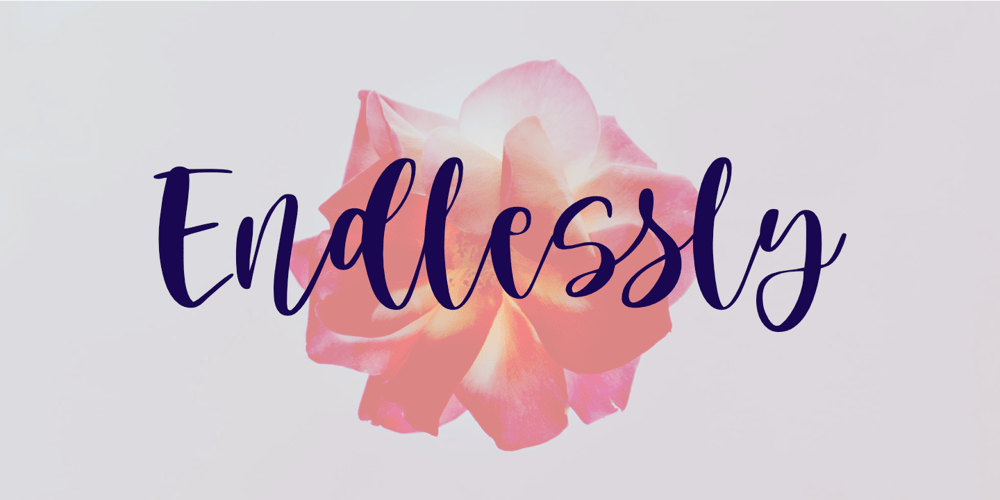
Endlessly Font Family was designed by Aldy Sidik and published by Epiclinez. Endlessly contains 1 styles and family package options. Endlessly is a sweet and elegant hand-lettered script font. Made with passion and love. Suitable for different kinds of purposes, such as logotype, product branding, wedding invitation, craft projects, and more. Add a romantic feel to your next project with this modern calligraphy-styled font.This script font is supporting more than 66 languages, which include: Afrikaans Albanian Catalan Danish Dutch English Estonian Finnish French German Italian Norwegian Portuguese Spanish Swedish Zulu, and more.So what’s included : Basic Latin A-Z & a-z Numbers, symbols, punctuations, and ligatures Accented Characters : ÀÁÂÃÄÅÆÇÈÉÊËÌÍÎÏÑÒÓÔÕÖØŒŠÙÚÛÜŸÝŽàáâãäåæçèéêëìíîïñòóôõöøœšùúûüýÿžß Thank you.